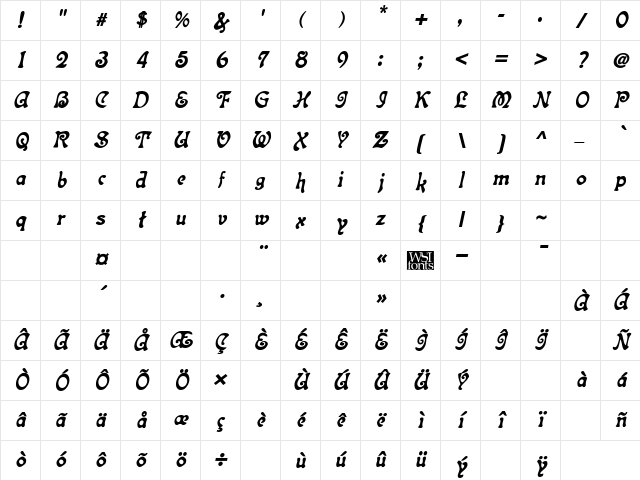
Topeka Bold Italic
Topeka Family
Topeka Bold Italic
Design Context for Topeka
Topeka is a composed and adaptable typeface that performs quietly and consistently across a wide range of design contexts. The slanted form adds forward momentum and visual energy. Its bold stroke weight gives it real presence on the page.